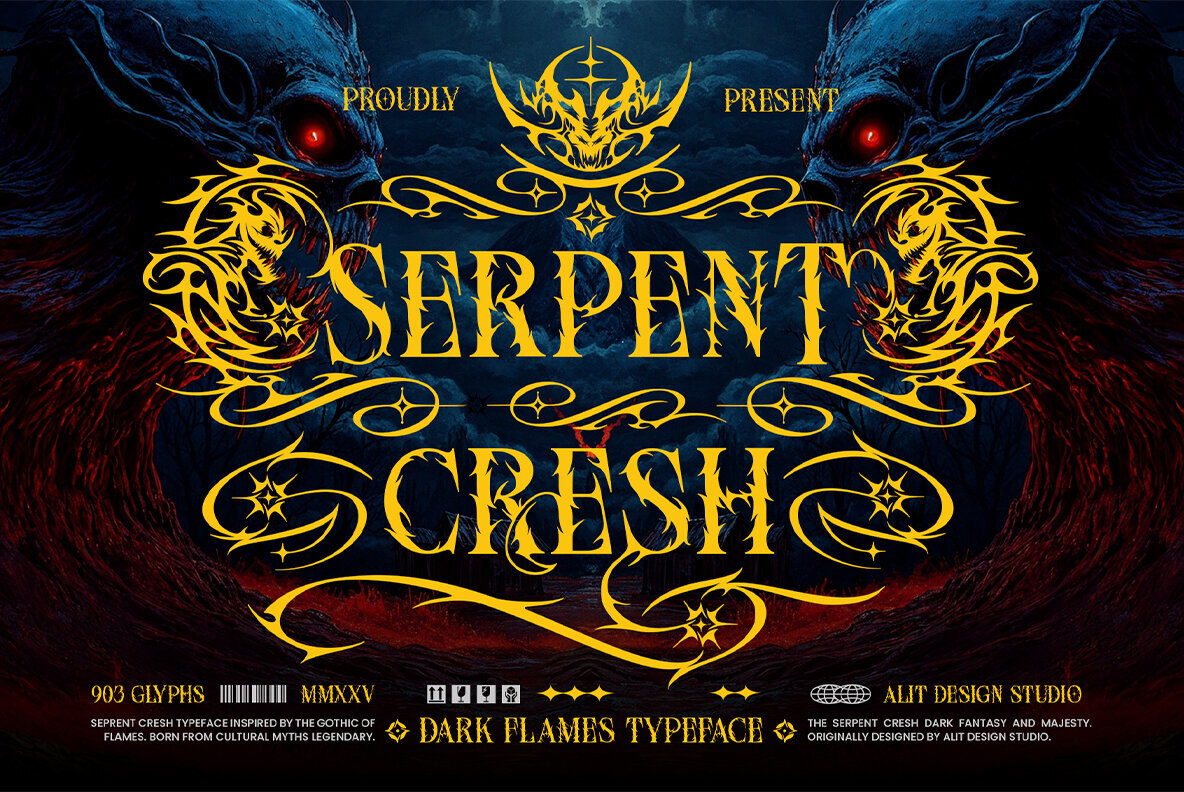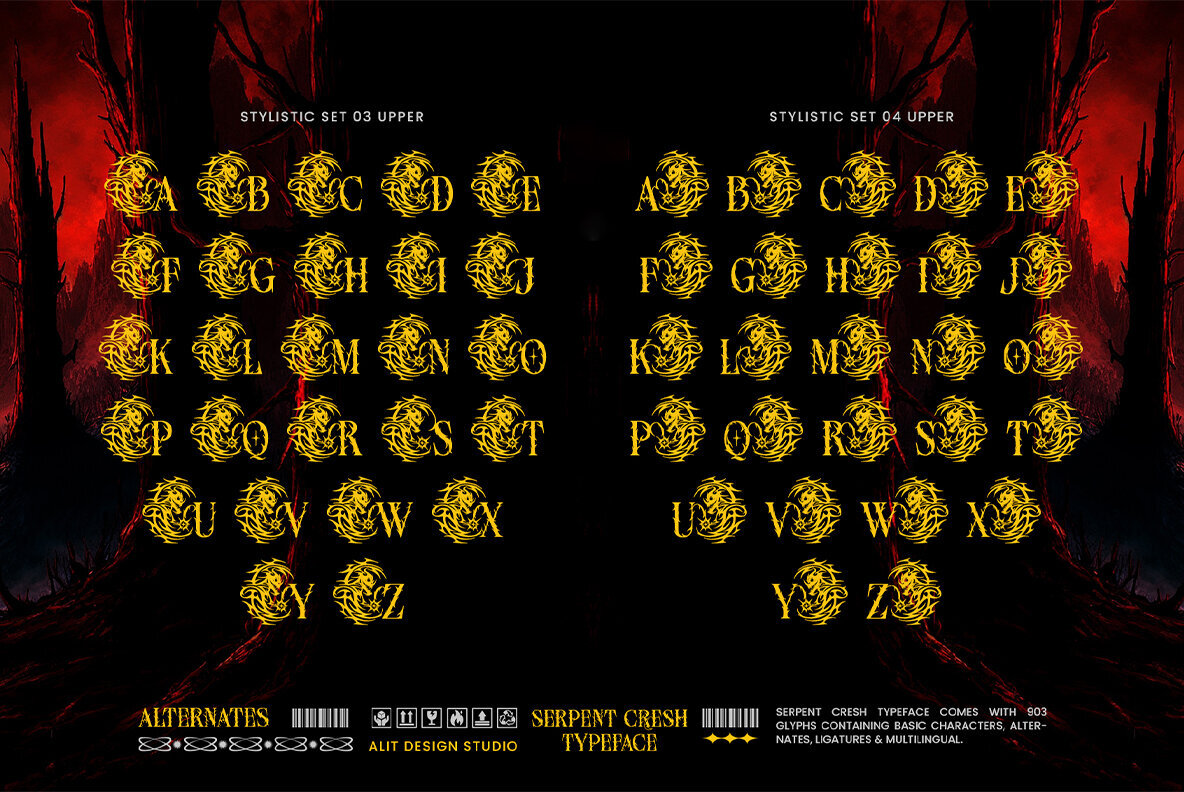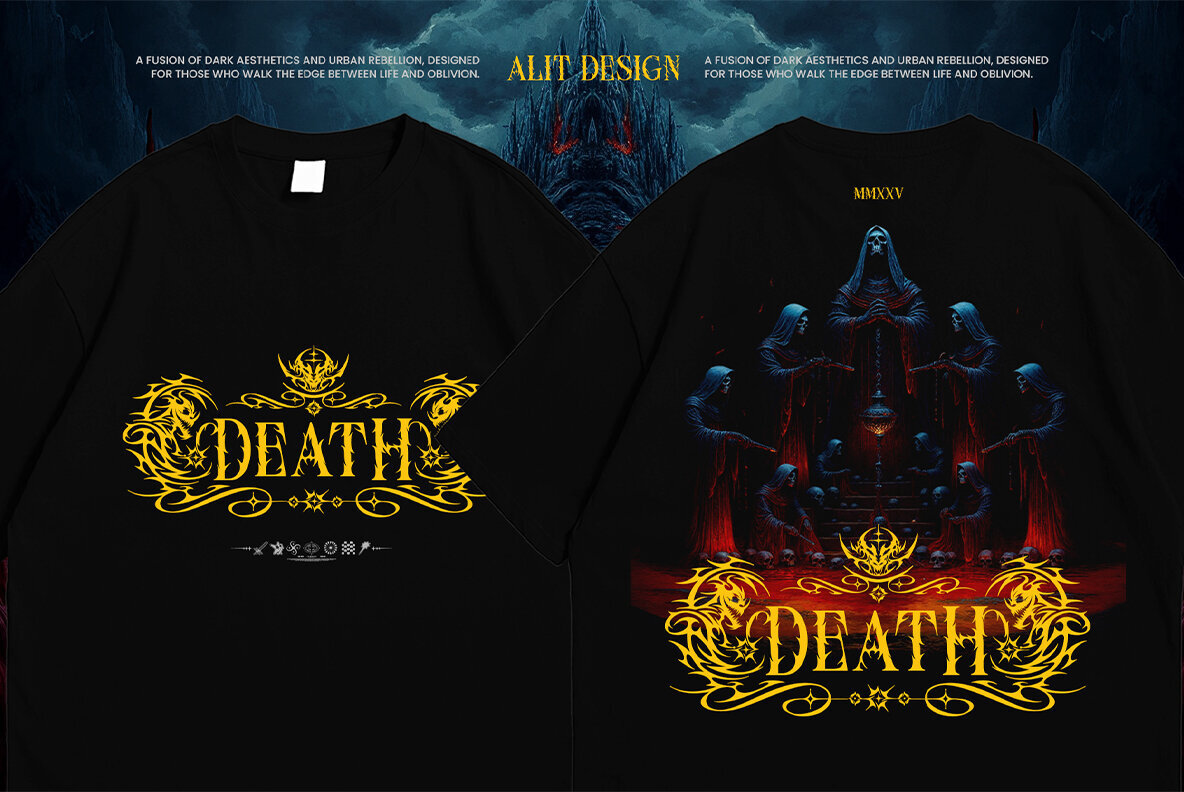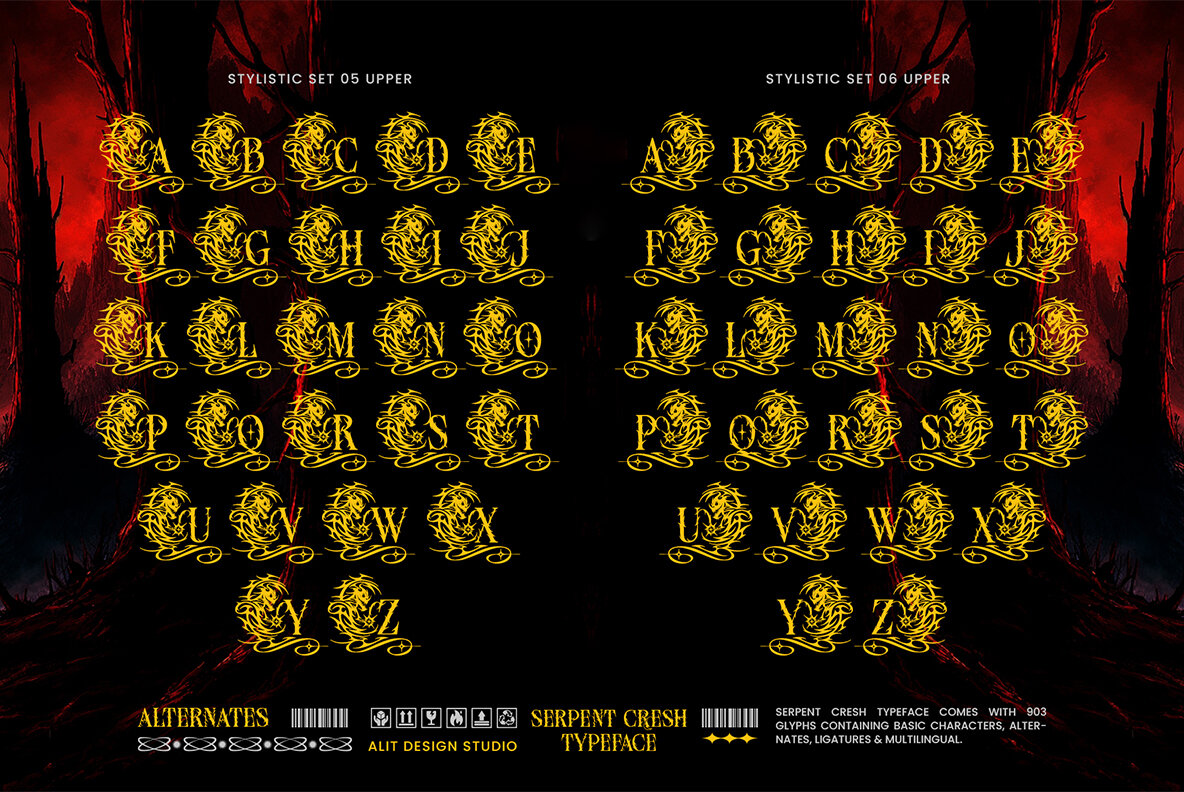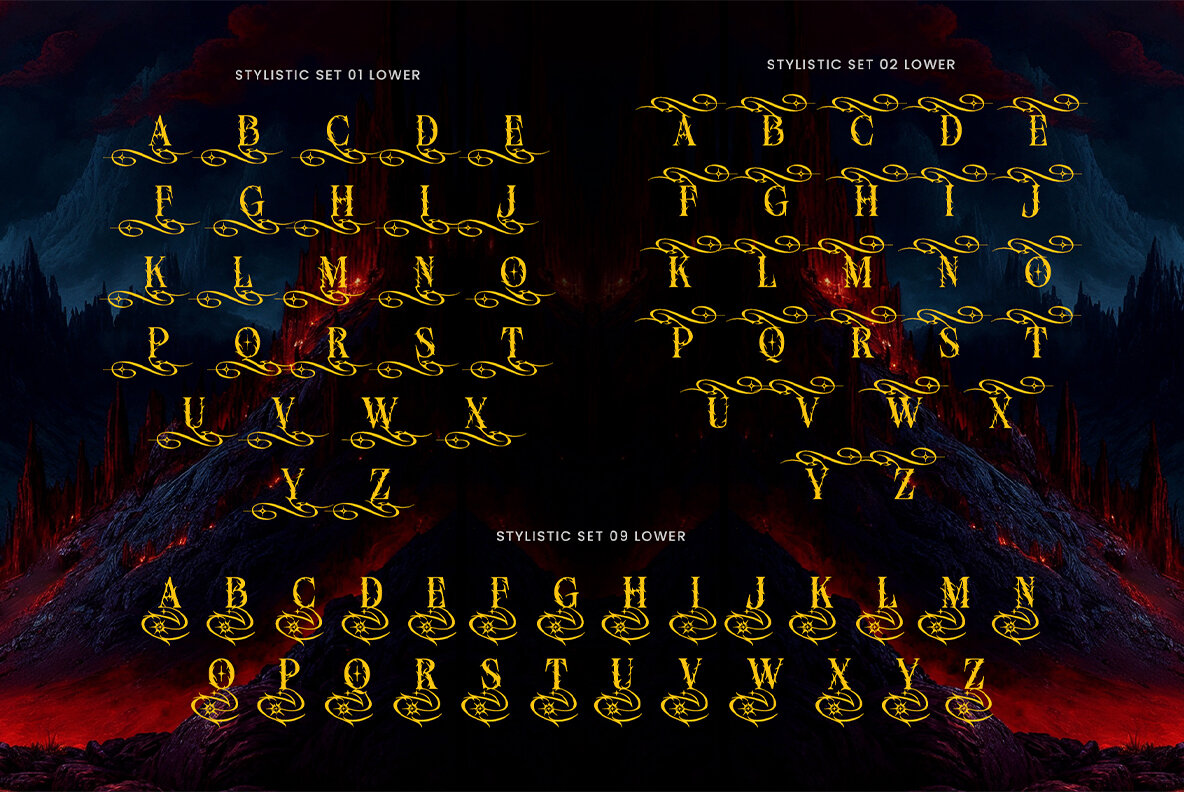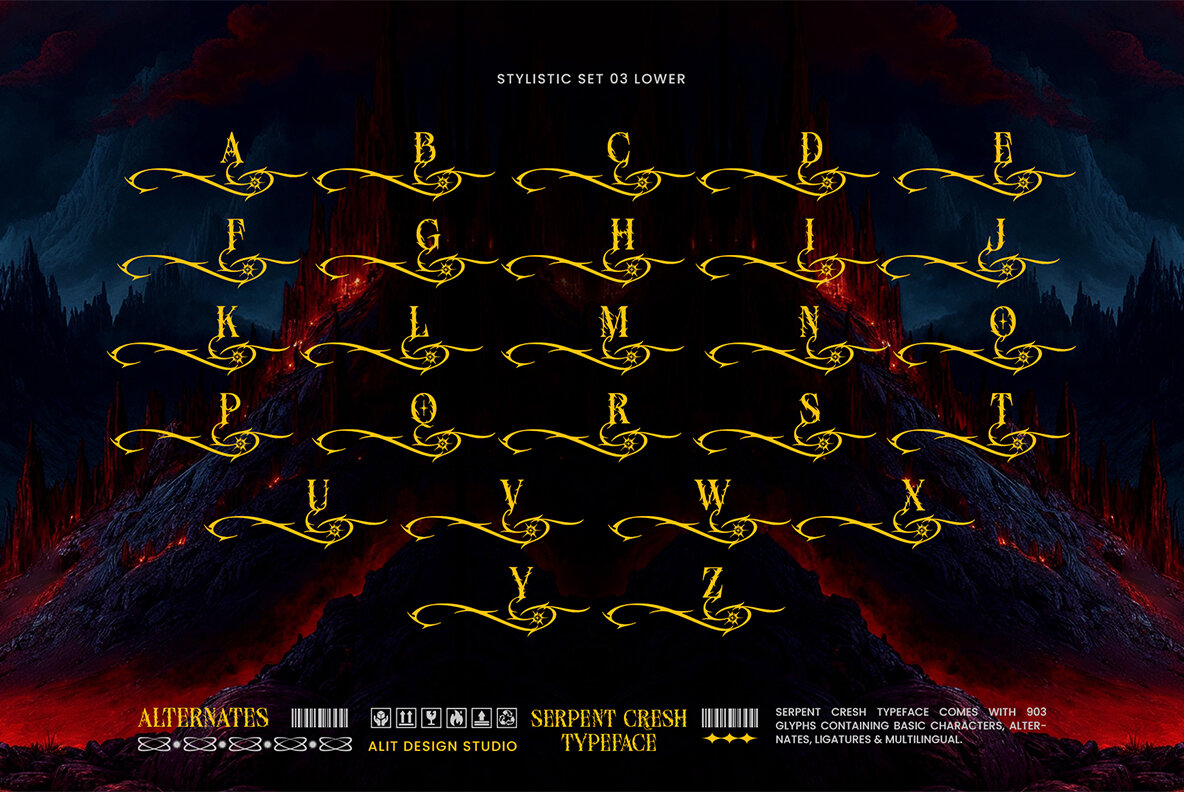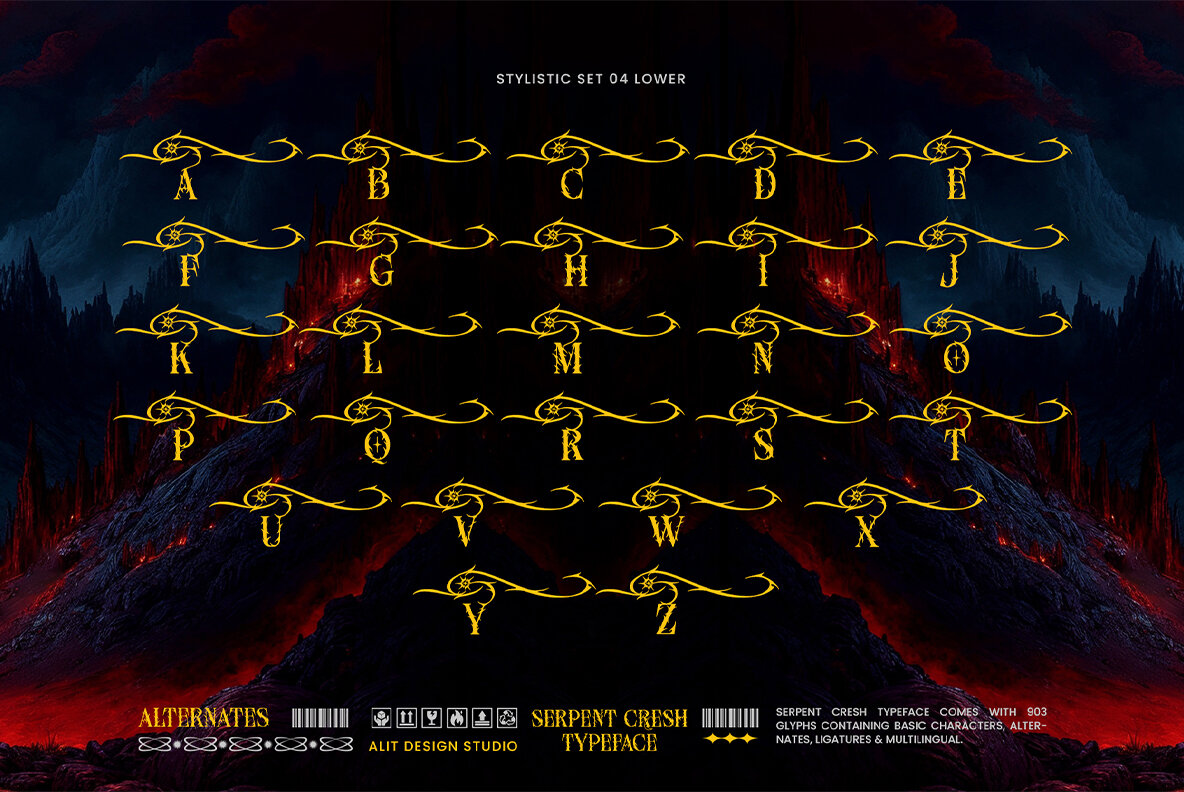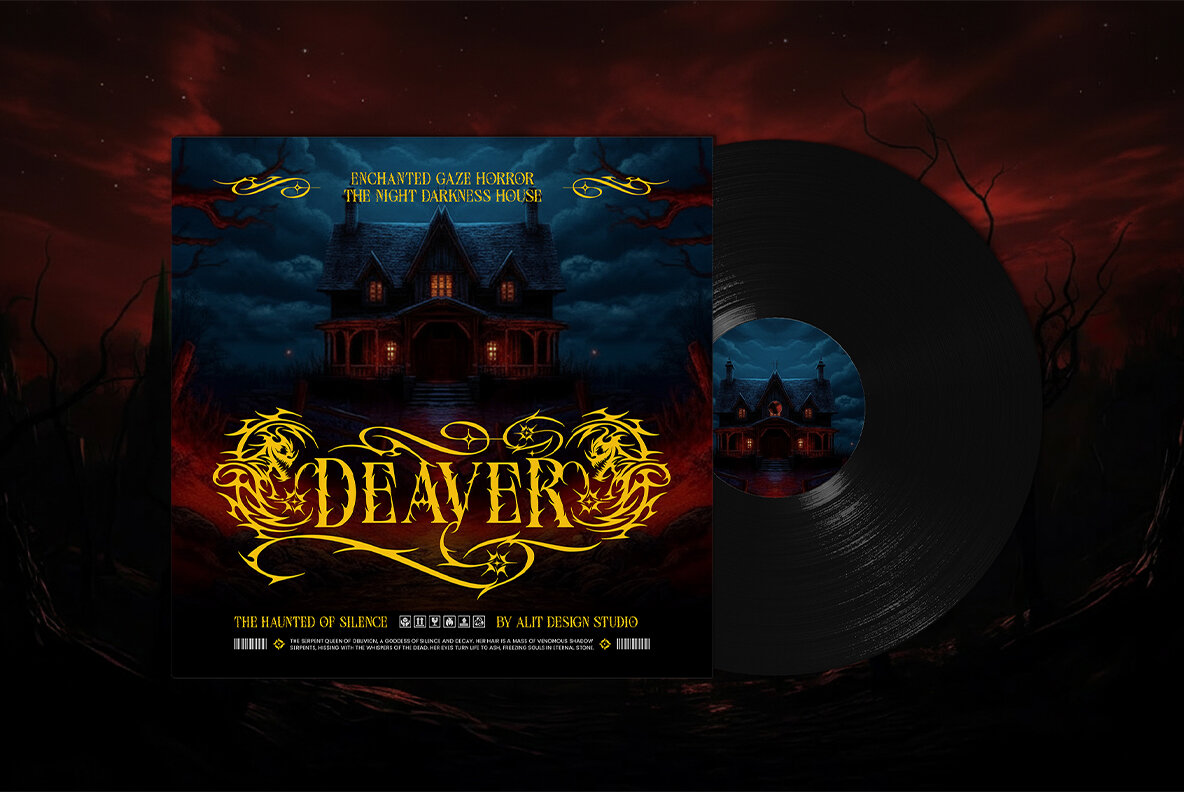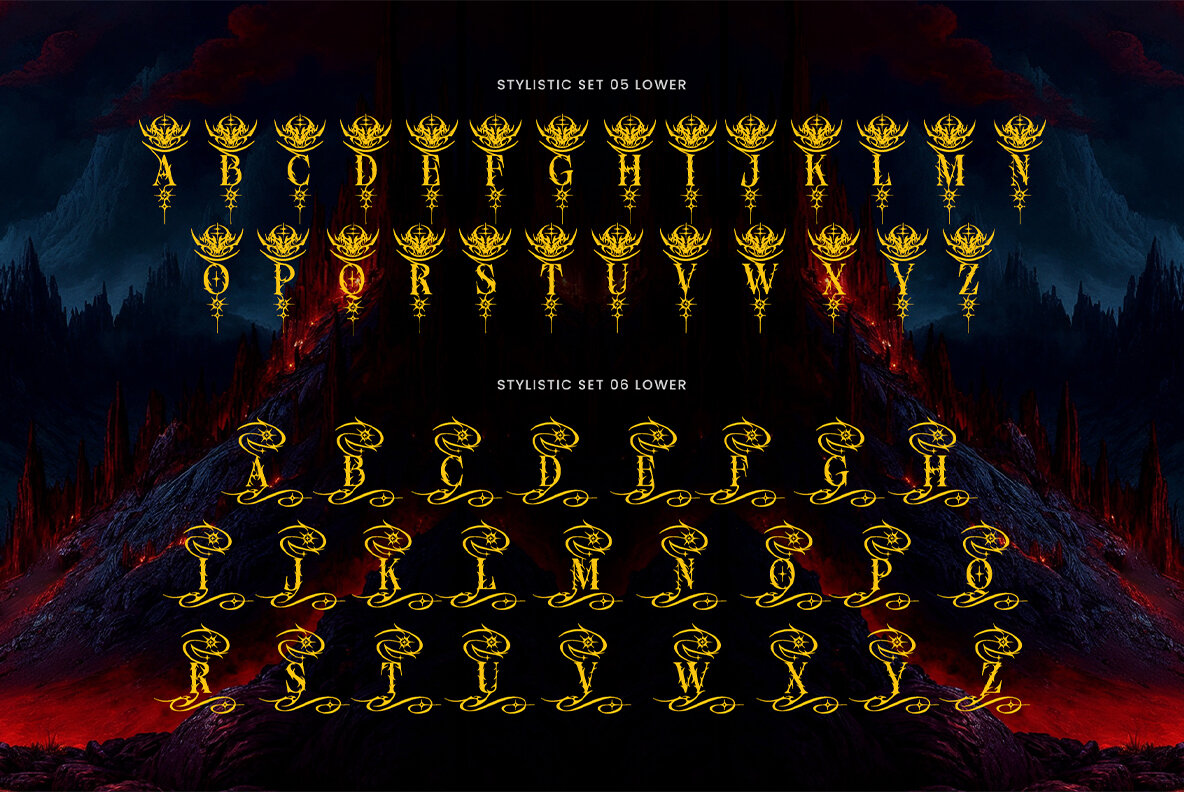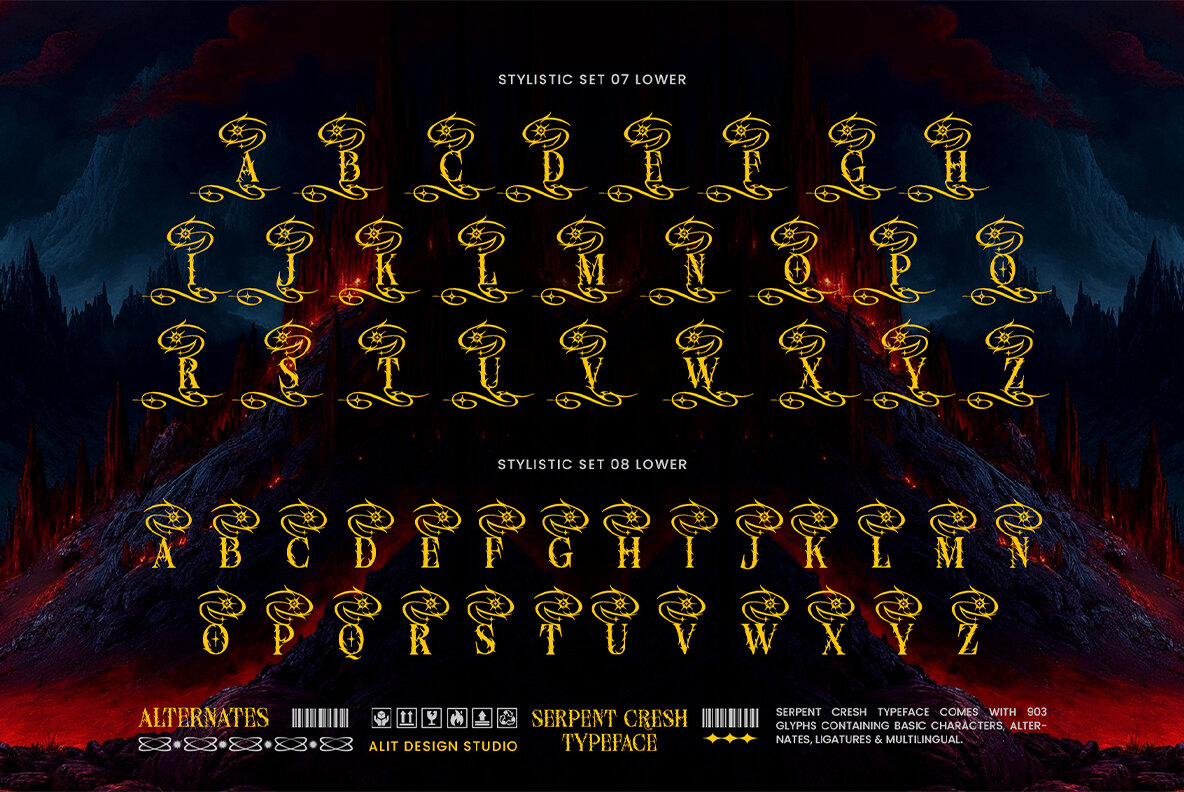
Serpent Cresh Font
Serpent Cresh Regular
Dive into the depths of dark fantasy with Serpent Cresh. Drawing from the formidable curves of mythical dragons and the fierce energy of heavy metal, this typeface emerges with a commanding presence. Its sharp, thorny edges and dynamic glyphs create an atmosphere of chaos and elegance, elevating your text to new realms of creativity. Combining intricate letterforms with an extensive range of alternates, Serpent Cresh is designed for projects demanding a profound, majestic aesthetic. Embrace its powerful structure in your designs and watch your words transform into striking works of art. Serpent Cresh offers more than just letters; it invites you into a world of legends and mystery. Enrich your design toolkit with this remarkable typeface and let your creativity delve into the enchanting and the extraordinary.Serpent Cresh: A Typeface of Mythical Majesty